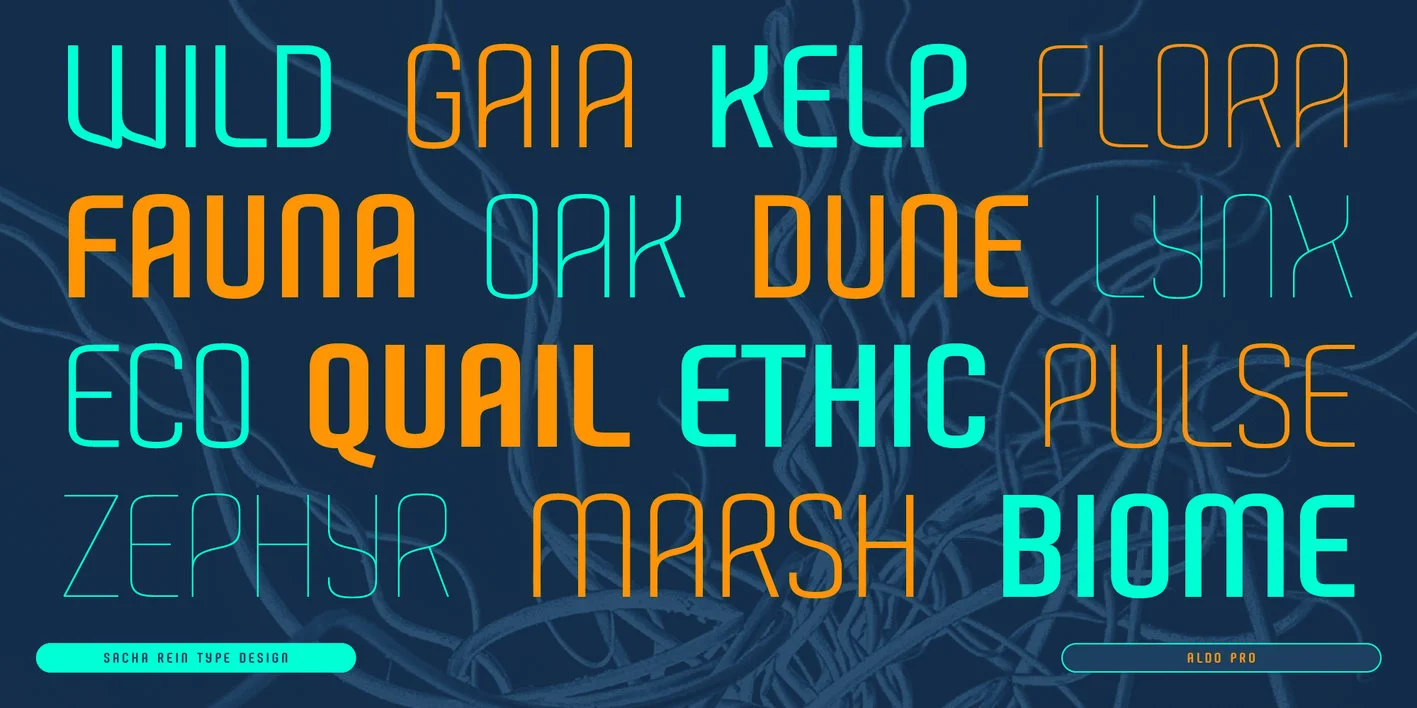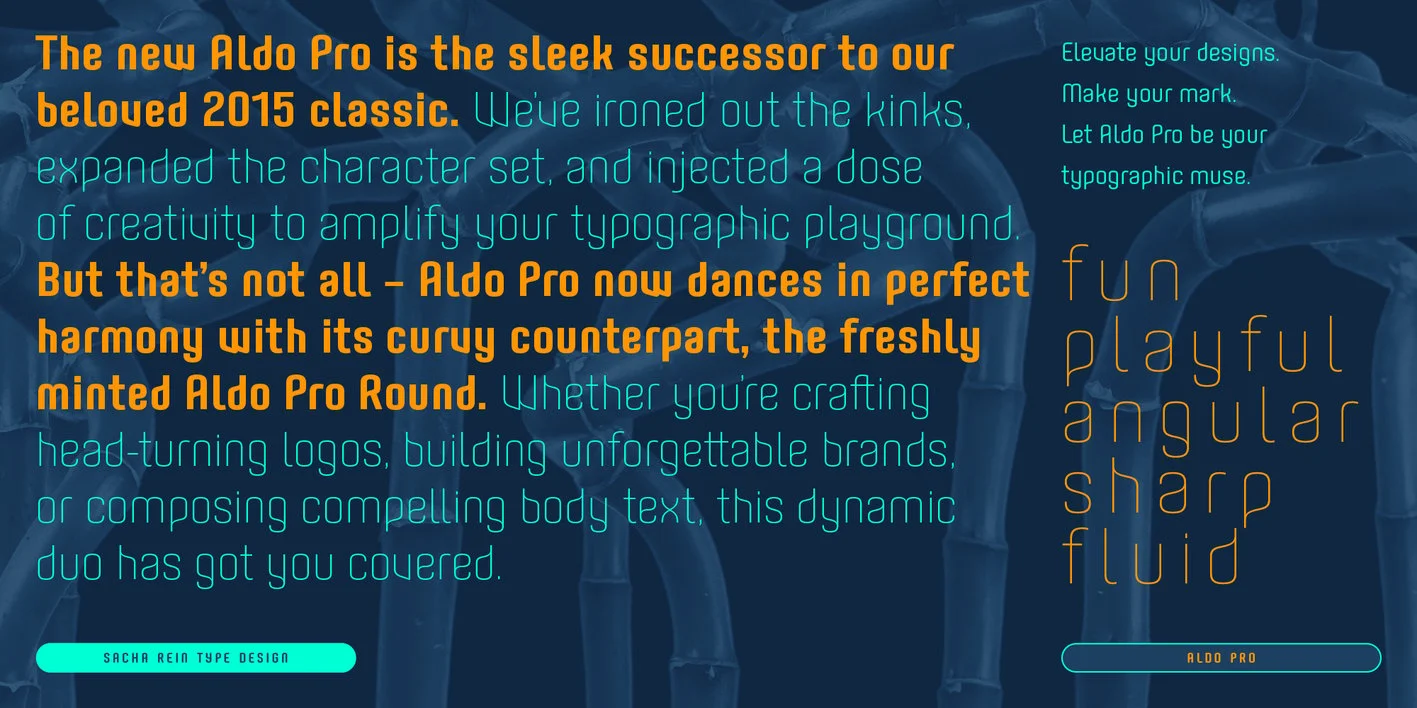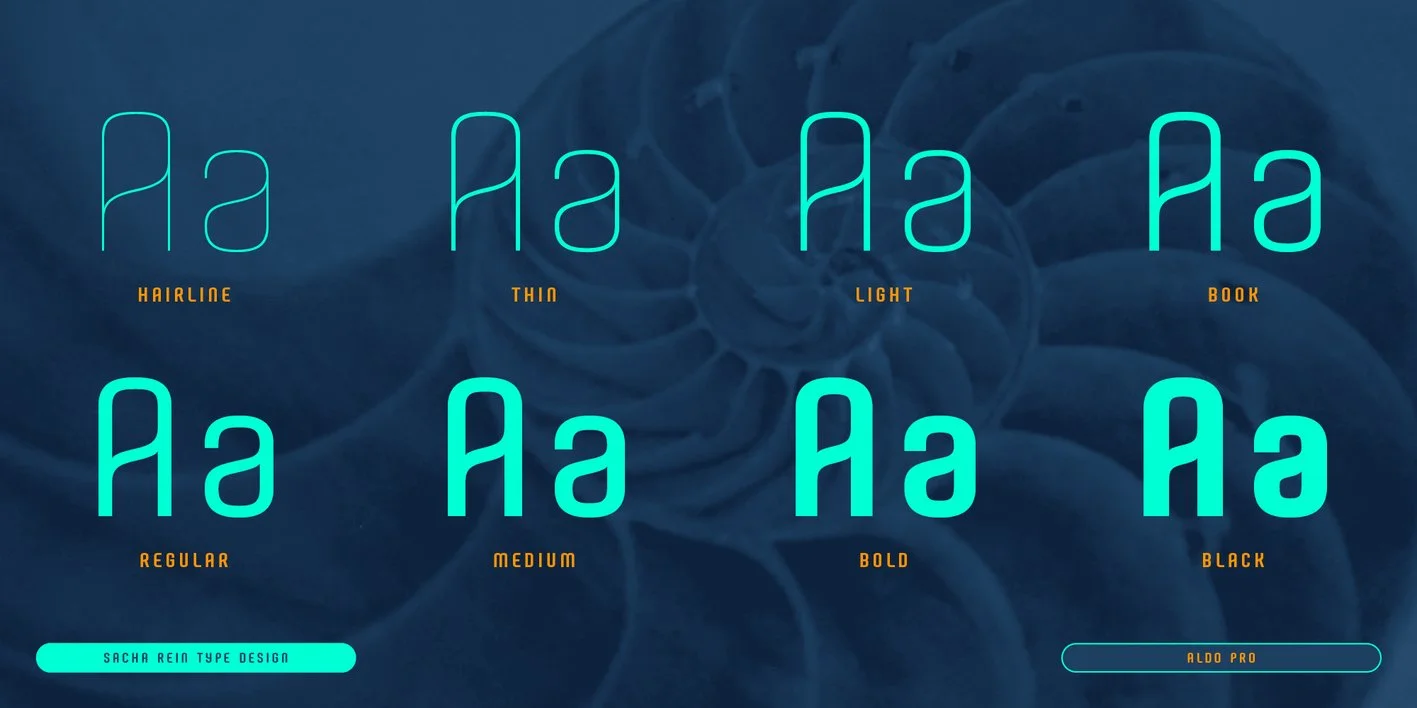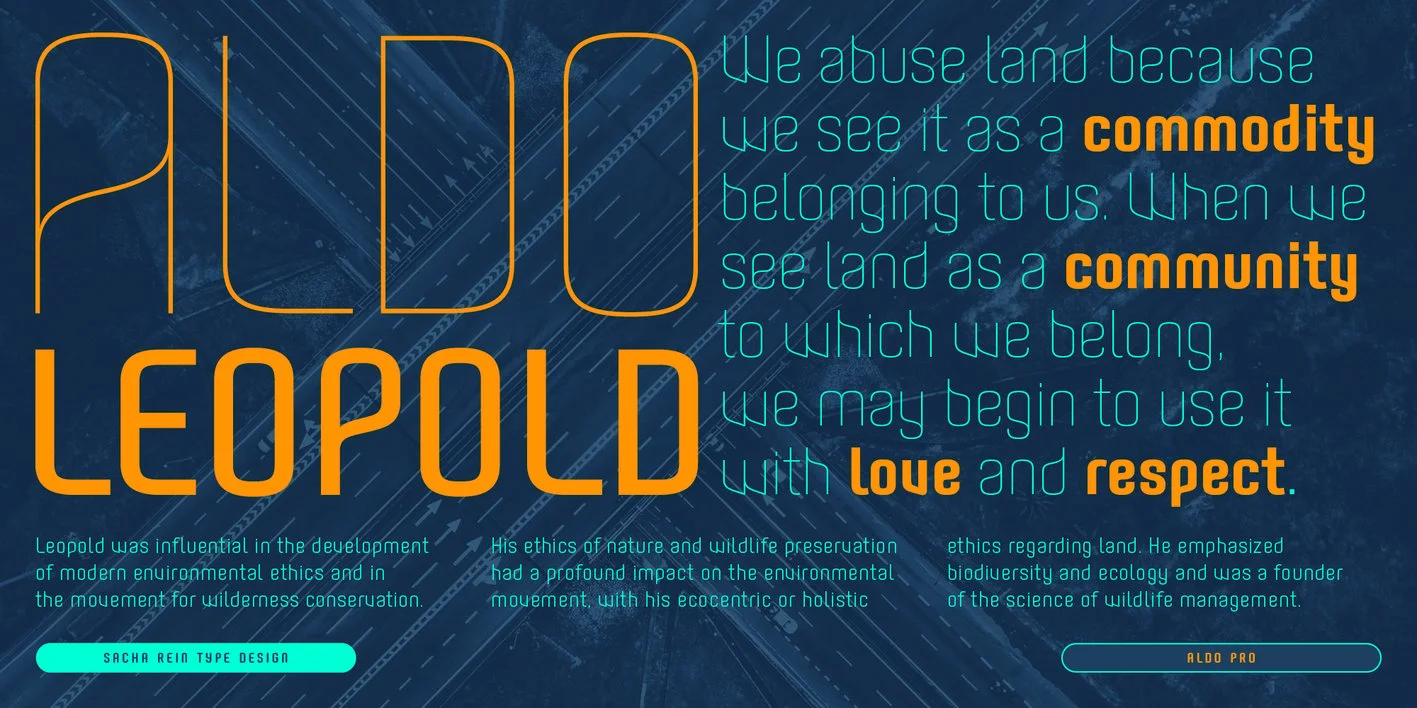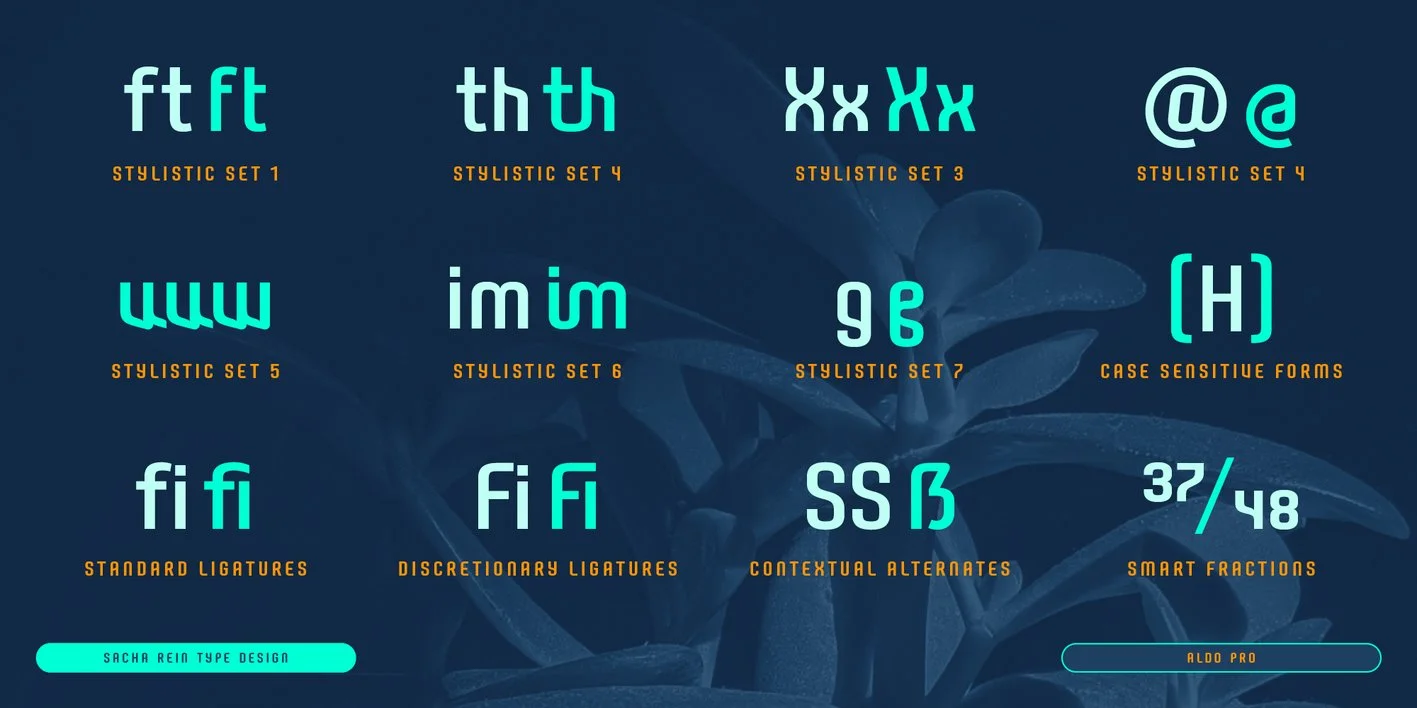
Aldo Pro Font
Few typefaces manage to balance strong typographic hierarchy support with genuine day-to-day practicality. Aldo Pro is one of them. The typeface brings a versatile sensibility to a broad range of creative disciplines, with optical balance across all weights that holds up whether the work is print-first or screen-first.
In practice, Aldo Pro proves particularly effective for logo design, signage systems, editorial layouts, web design, brand identity systems. Designers reaching for it find that the type decisions feel resolved rather than laboured — a useful quality when client timelines are tight.
The range of applications extends to advertising campaigns, packaging design, poster creation, environmental graphics. That breadth is deliberate: the proportions and spacing were stress-tested across a wide range of mock briefs before the typeface was finalised.
Aldo Pro sits comfortably alongside both classic and contemporary typefaces in multi-font hierarchies. It takes direction rather than competing for attention — a quality that experienced designers know is harder to find than it appears.
Art directors commissioning type-led campaigns find Aldo Pro a reliable choice for projects that demand both personality and restraint. The design avoids the self-conscious quirkiness that dates quickly, settling instead for considered distinctiveness that holds up over time.